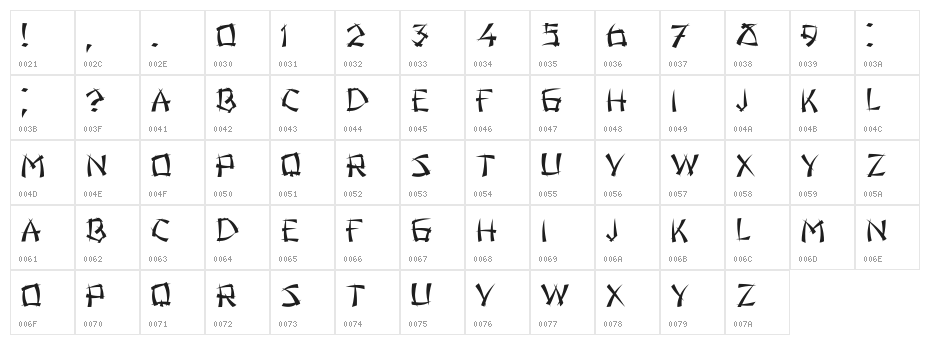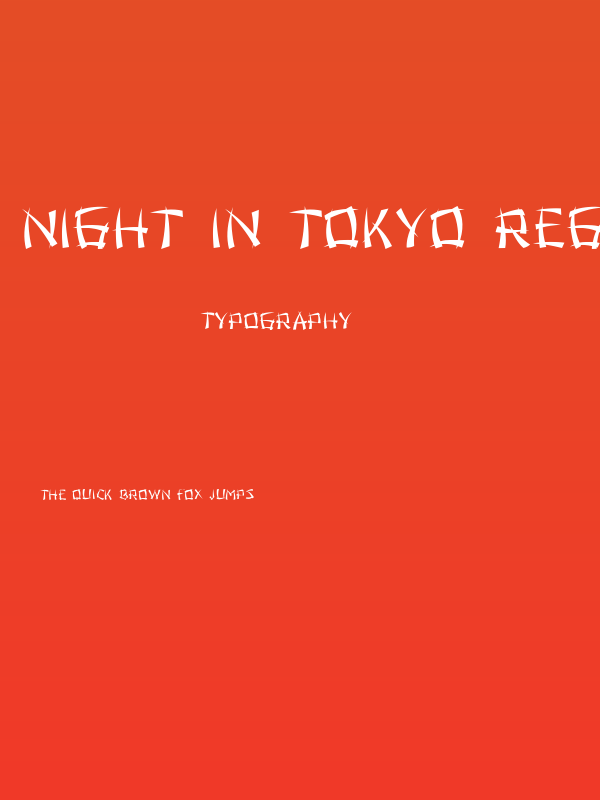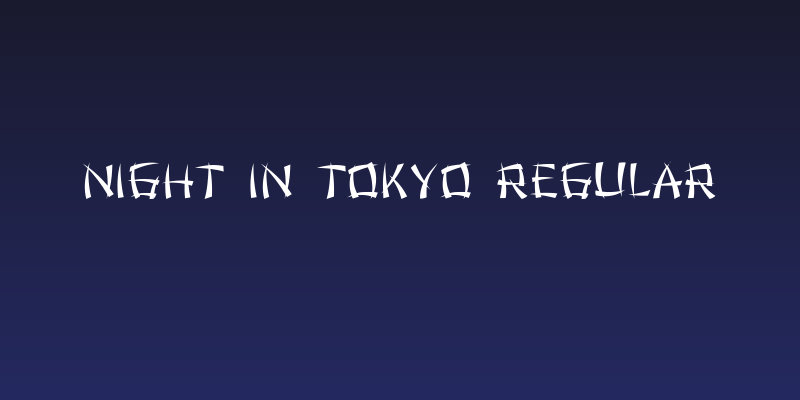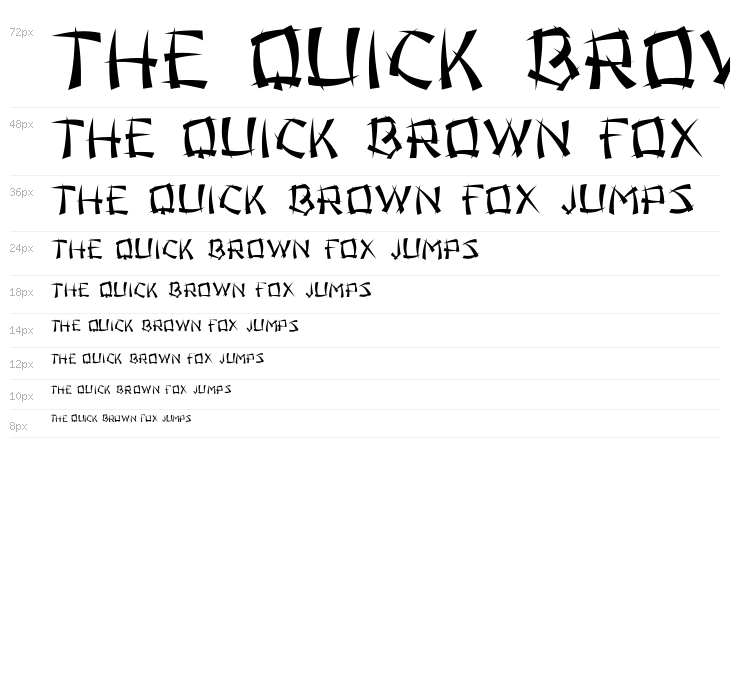
Night in Tokyo Regular Font
Night in Tokyo Regular Description
This font features a unique, edgy design with sharp, angular strokes that give it a dynamic and energetic feel. The characters are crafted with a sense of movement, resembling brush strokes or calligraphic elements, which adds a touch of artistic flair. The uppercase and lowercase letters maintain a consistent style, with each character exhibiting a distinct personality. The numerals and special characters follow the same design principles, ensuring uniformity across all glyphs. This font is ideal for projects that require a bold and unconventional aesthetic.
| Proposed Projects | Ideal for posters, album covers, branding, and any project seeking a bold, artistic touch. |